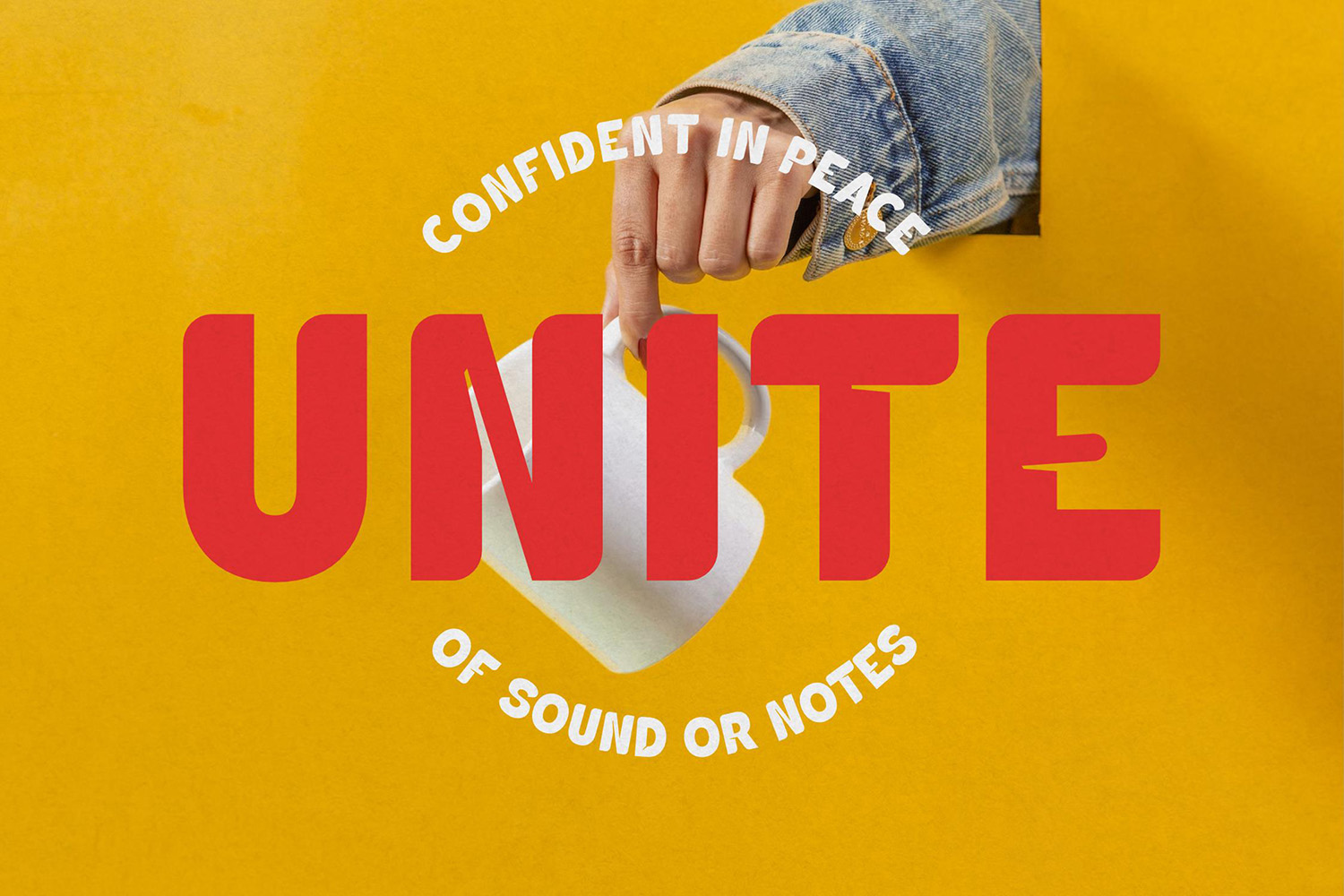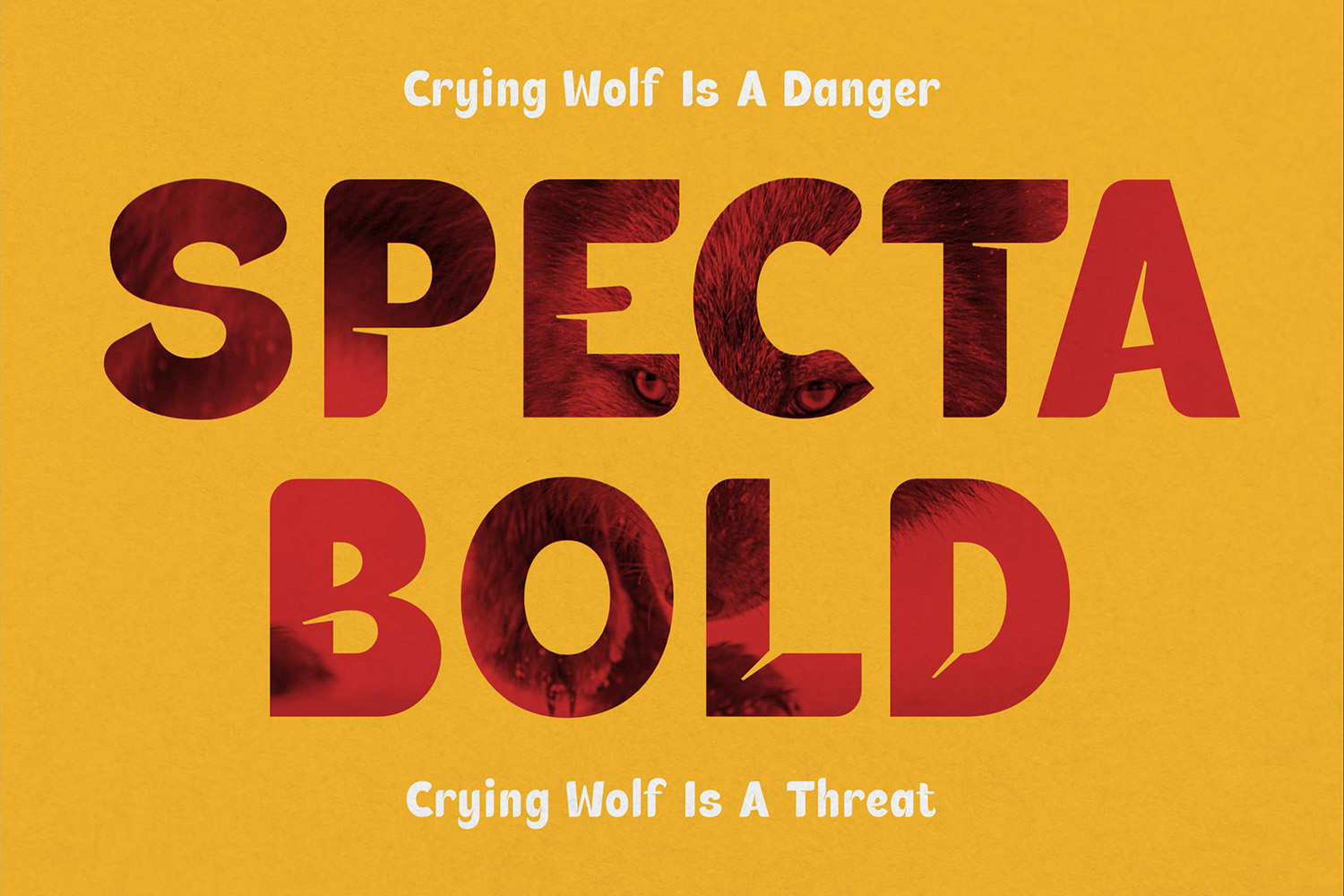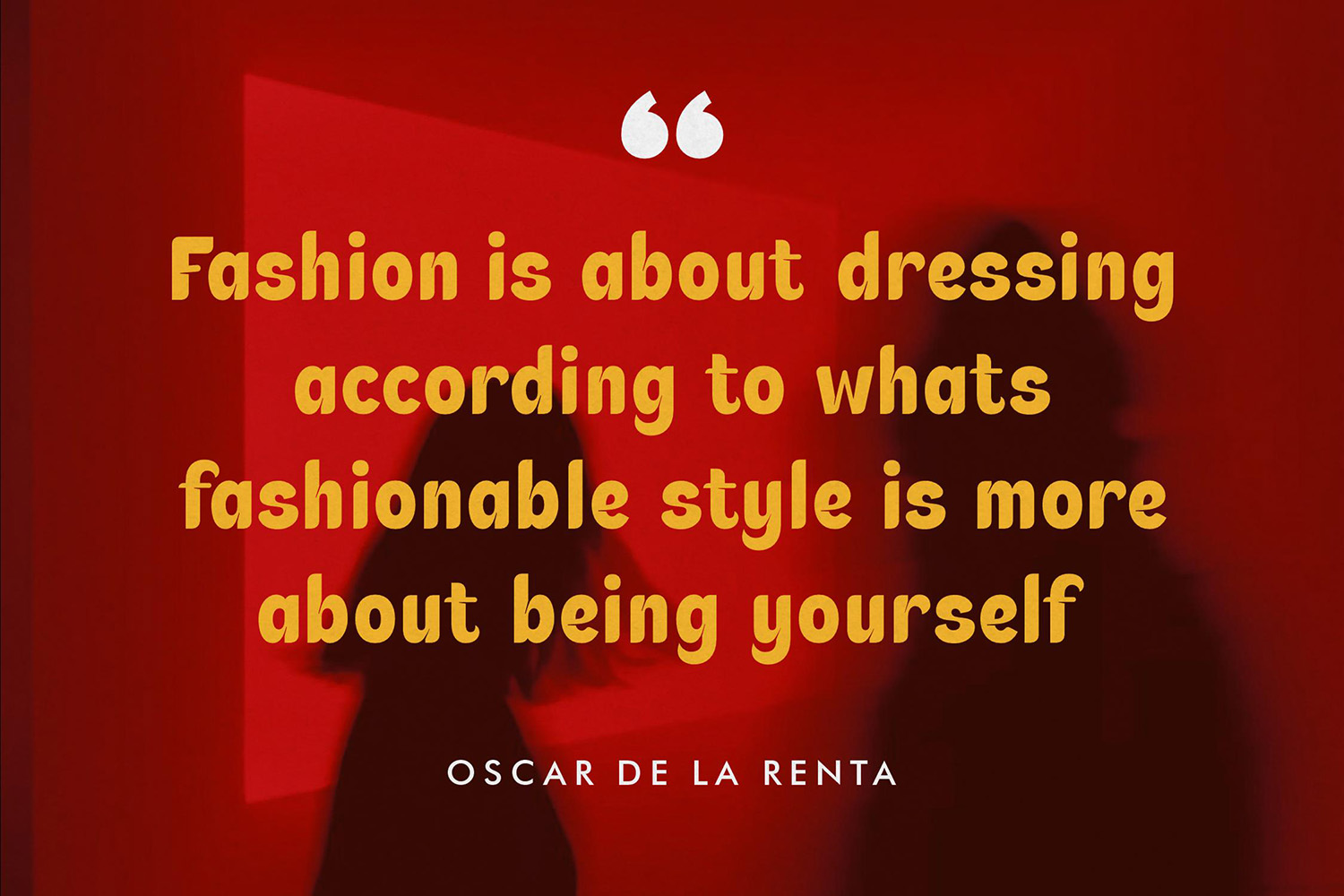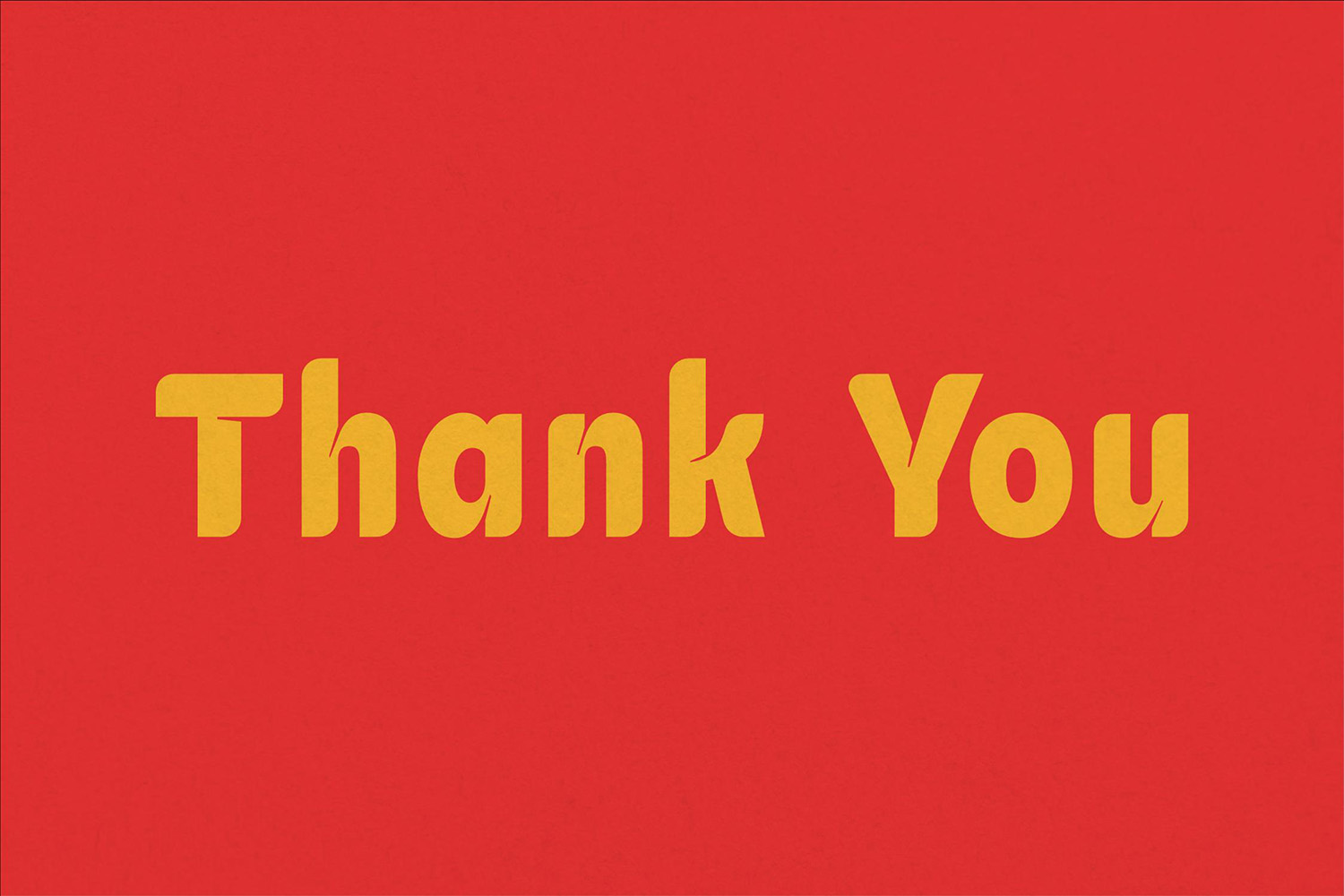
Saklifie Free Font
Saklifie Free Font is a modern masterpiece that exudes confidence and sophistication. Its clean lines and crisp edges create a bold and powerful statement, perfect for contemporary brands looking to make an impact. The sans-serif style of this font gives it a sleek and minimalist look that’s both timeless and cutting-edge, making it ideal for modern branding, web design, and digital marketing. With its versatile design and universal appeal, this font has the power to communicate your brand’s message with clarity and style, leaving a lasting impression on your audience. Whether you’re looking to convey strength, stability, or simply the latest in design trends, the Sans Serif Saklifie Free Font is a must-have for any brand looking to make an emotional connection with its customers.